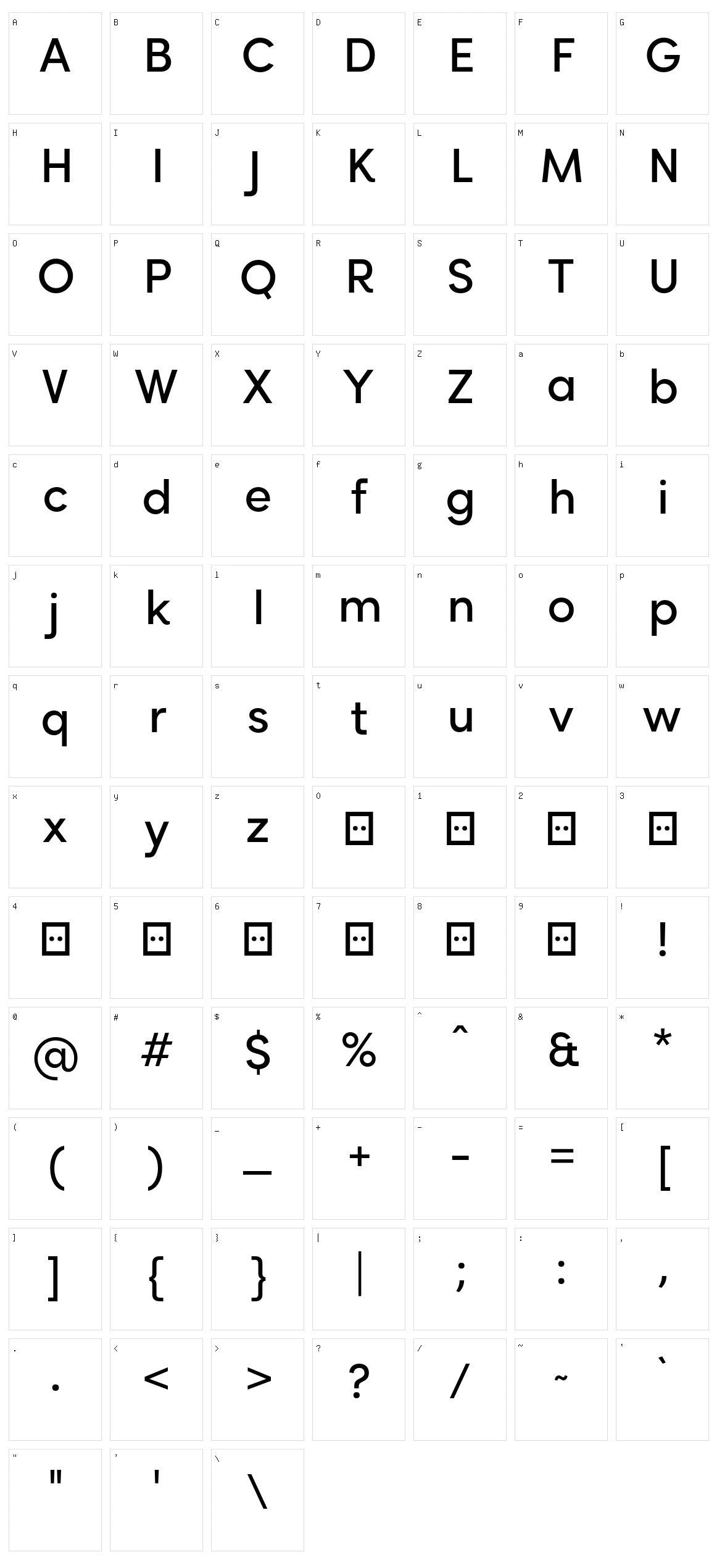
The free font Rozanova is carefully designed by Variable Tyep Foundry, showcasing a thoughtful balance of creativity and usability and falls under the Sans serif font style. When you download the ZIP file, it contains only 69.28 KB of font files, making it lightweight and quick to download. Please review the license details below to understand permitted usage and distribution rights. If license information is not available, we recommend using this font for personal projects only or contacting the author directly for commercial usage permissions.